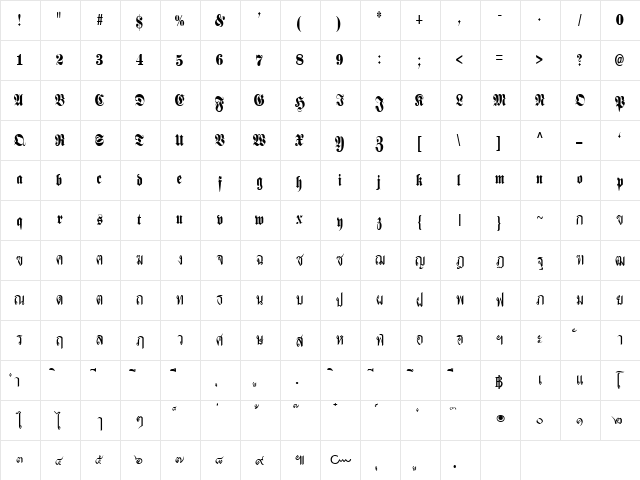
DSN PaTiMoke Regular
Design Context for DSN PaTiMoke Typeface
DSN PaTiMoke is a composed and adaptable typeface that performs quietly and consistently across a wide range of design contexts.